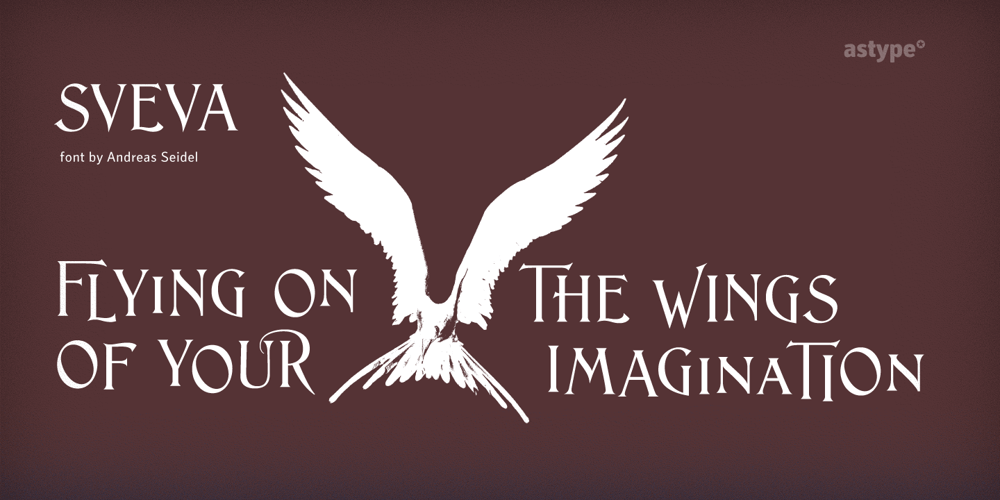
Sveva
Sveva font
Sveva Font Family was designed by Andreas Seidel and published by astype. Sveva contains 1 styles and family package options. Sveva Versal is a light swinging art nouveau caps only headliner, with swash like alternates and lots of special combinations. It’s well suited to set a short and fancy block or line of text.>>> PDF Specimen <<<